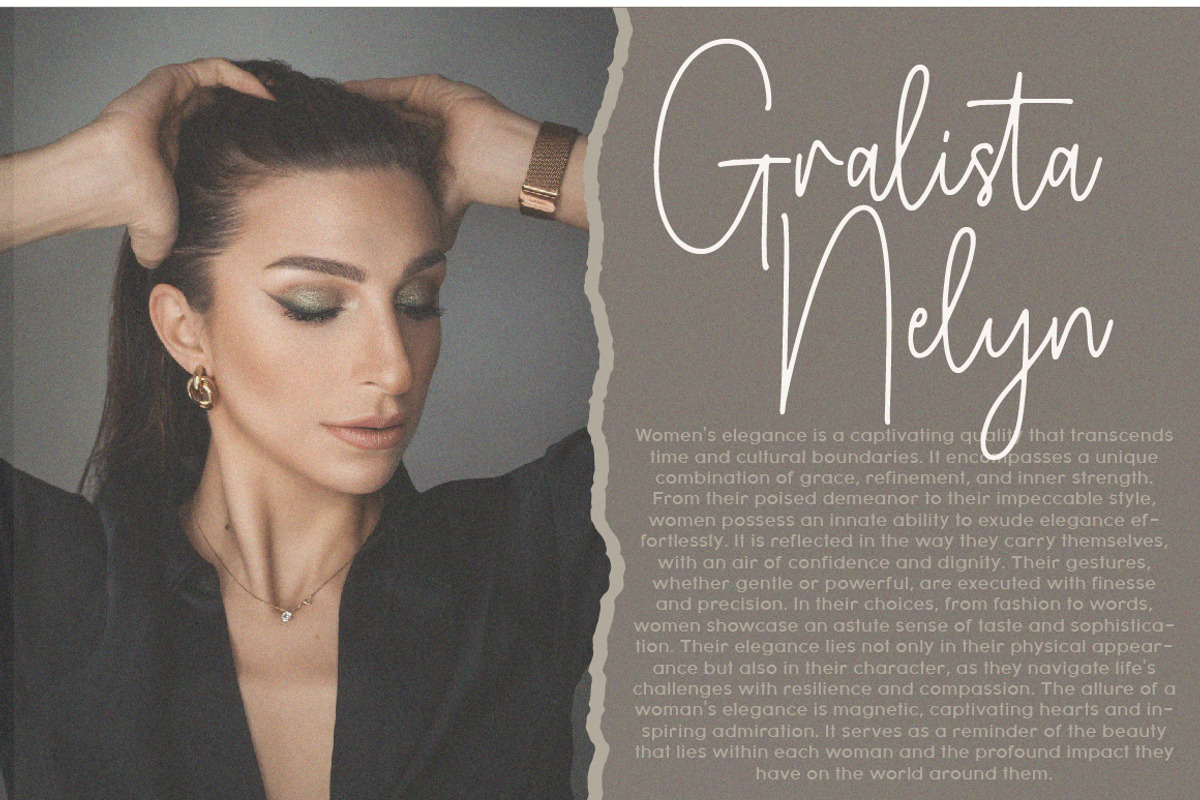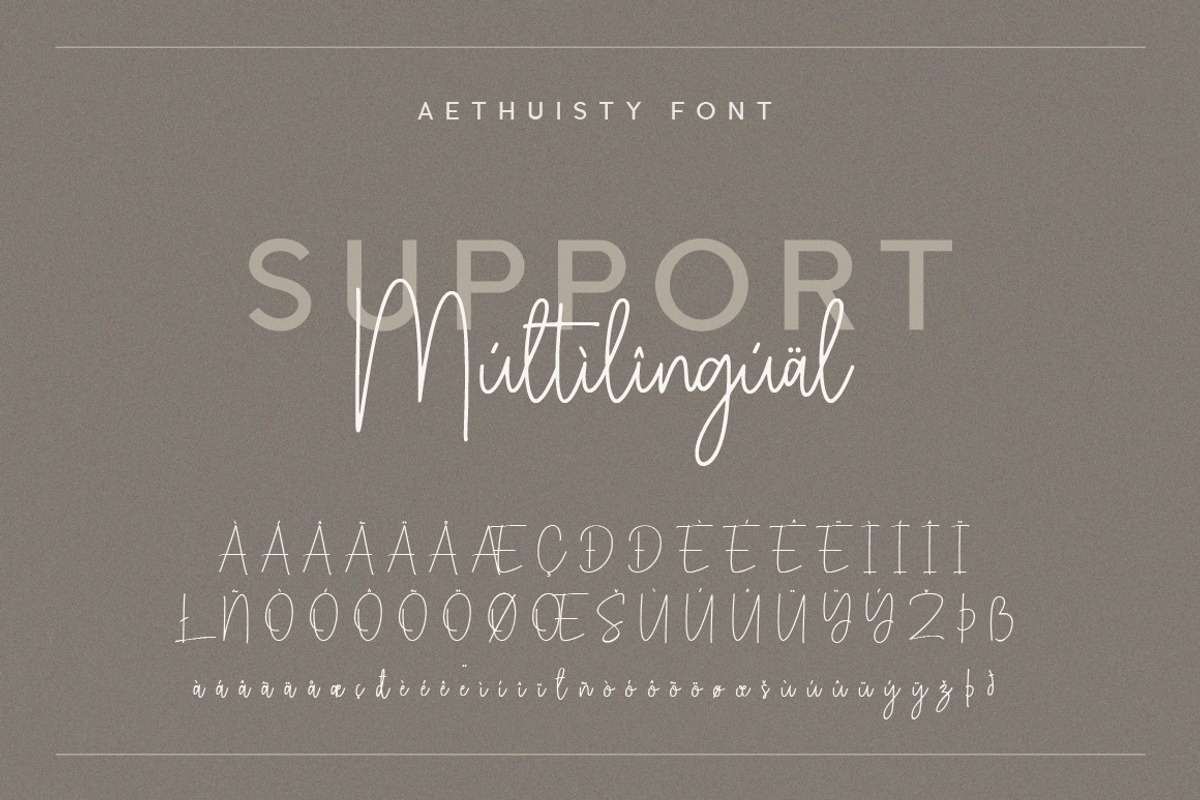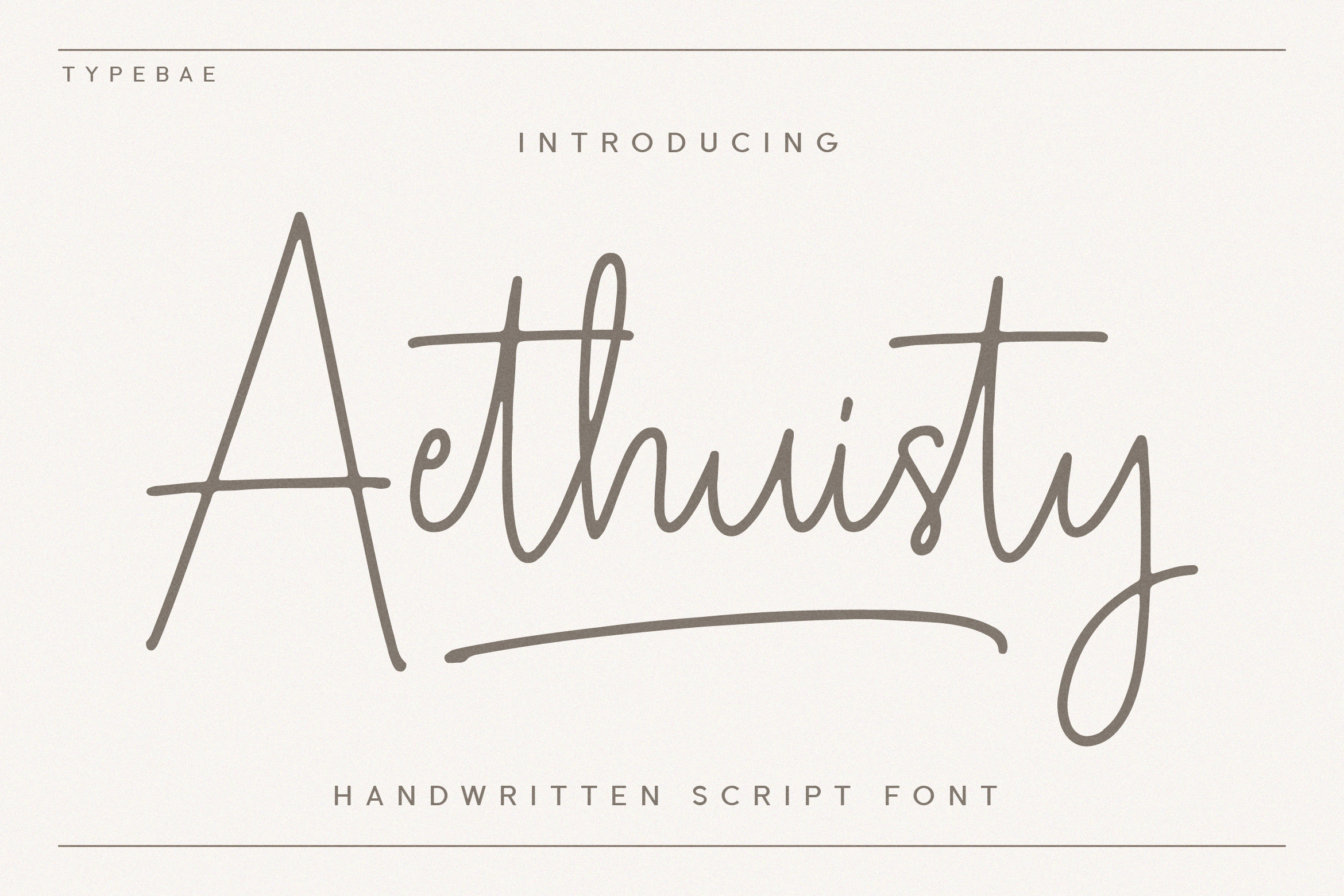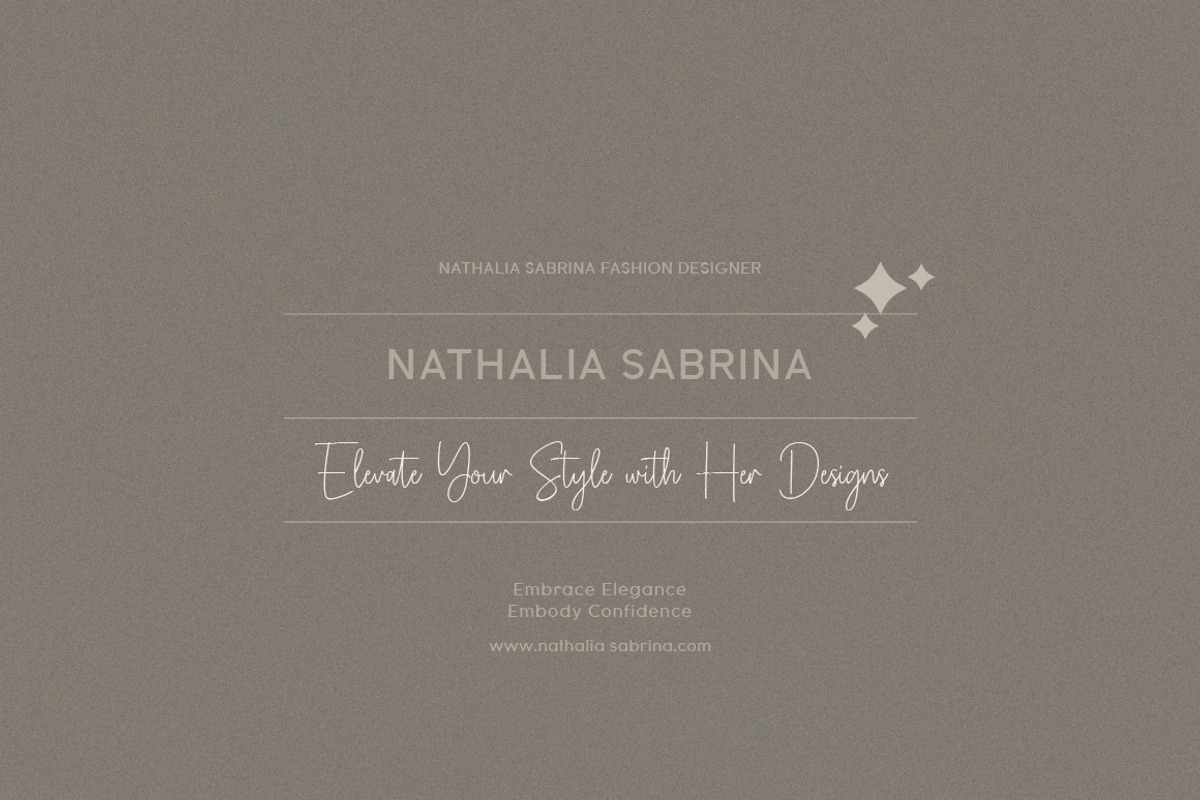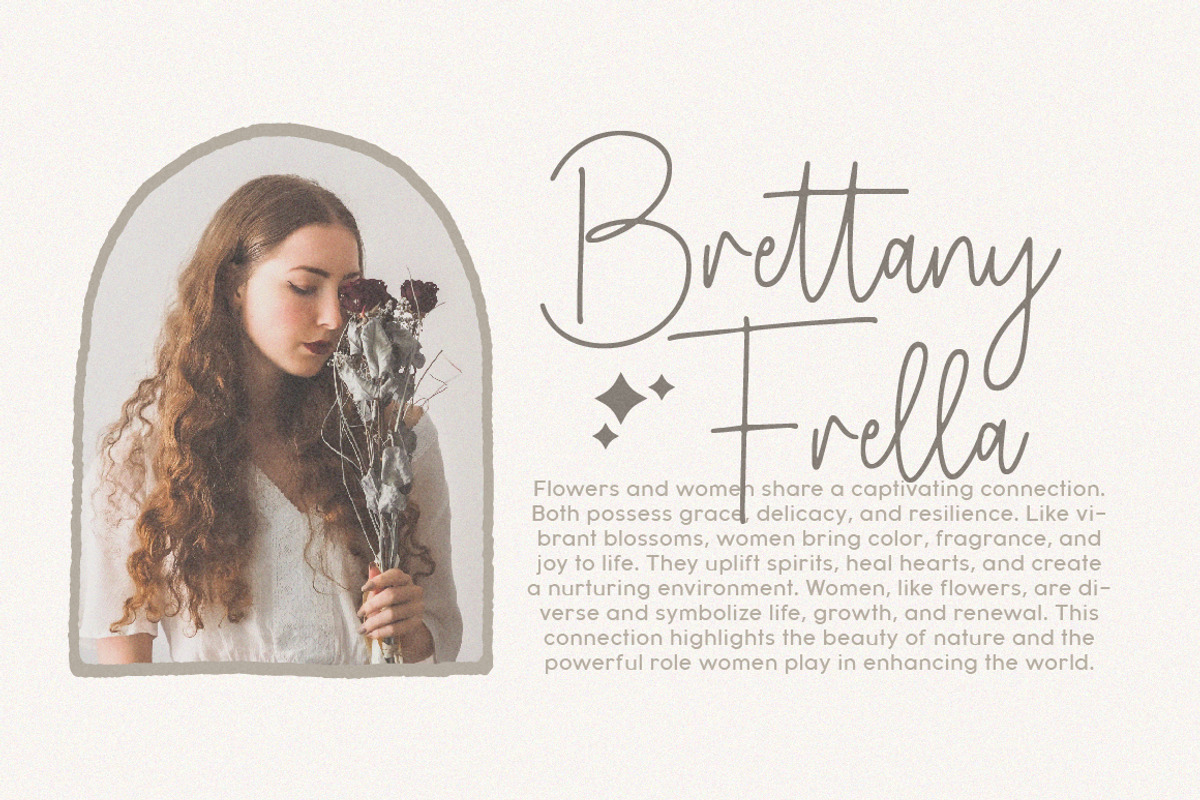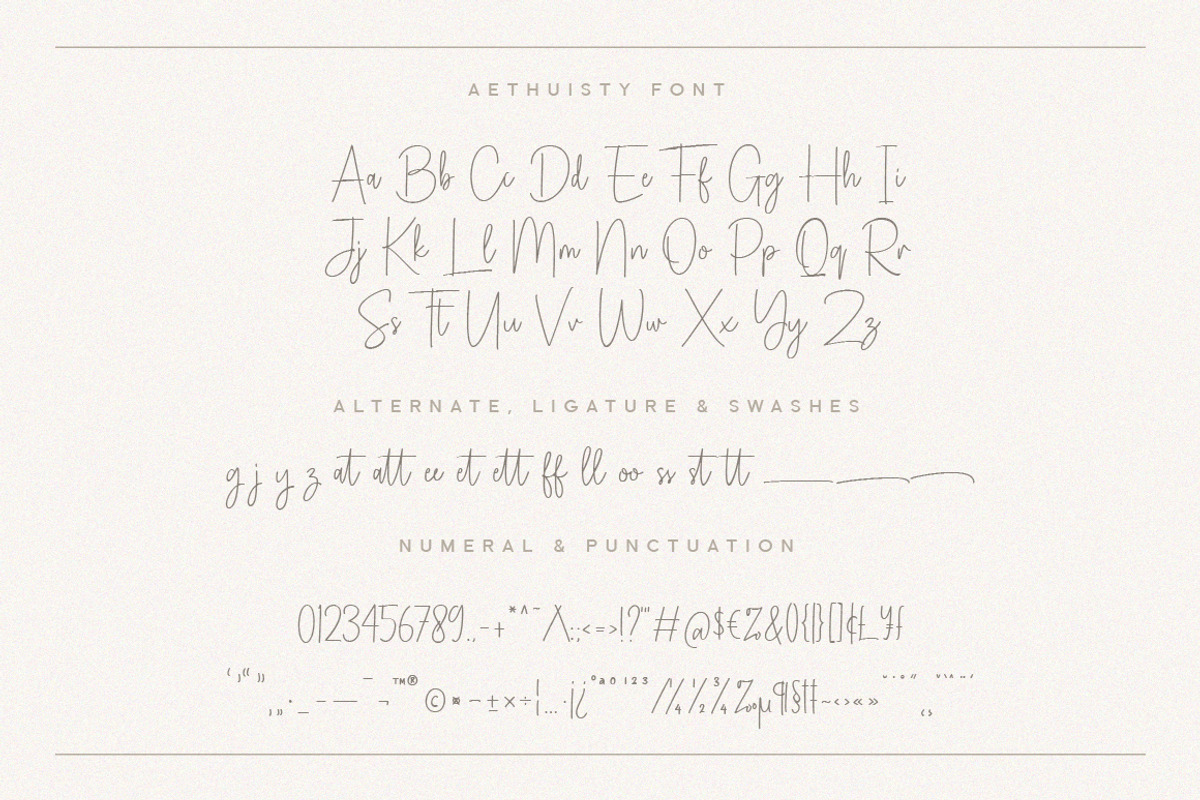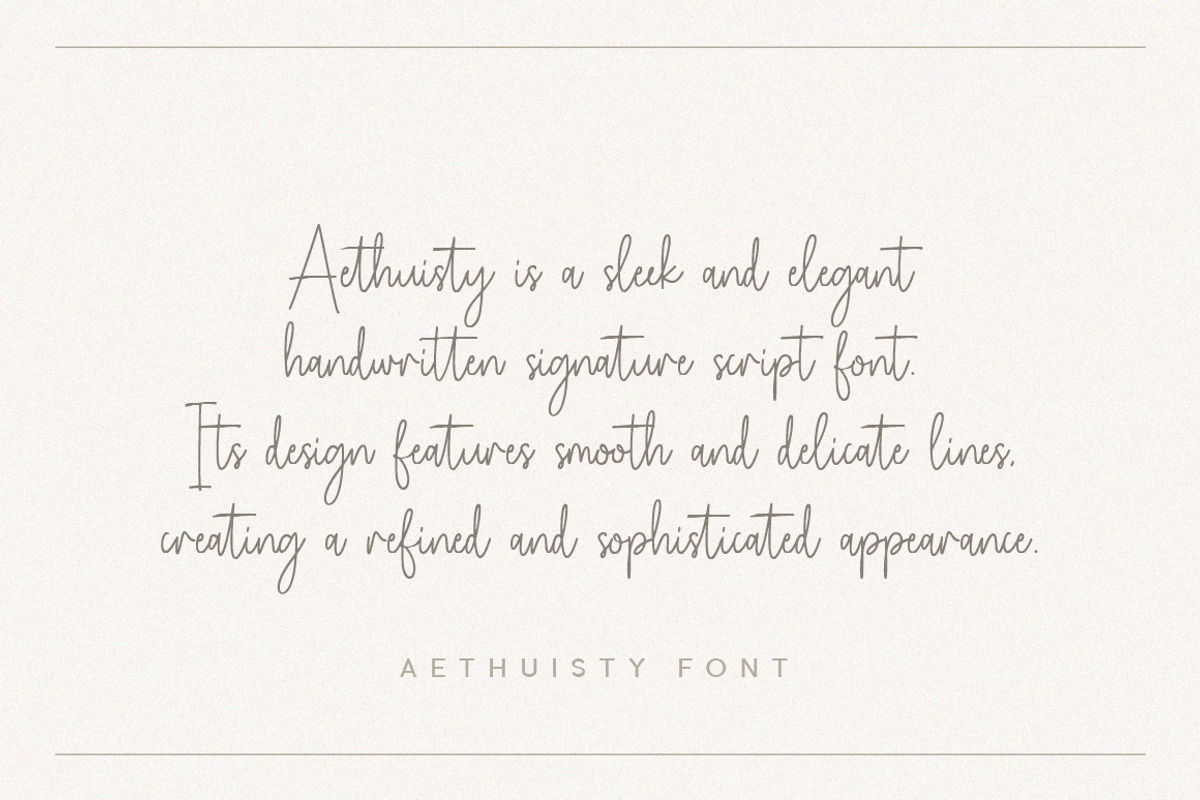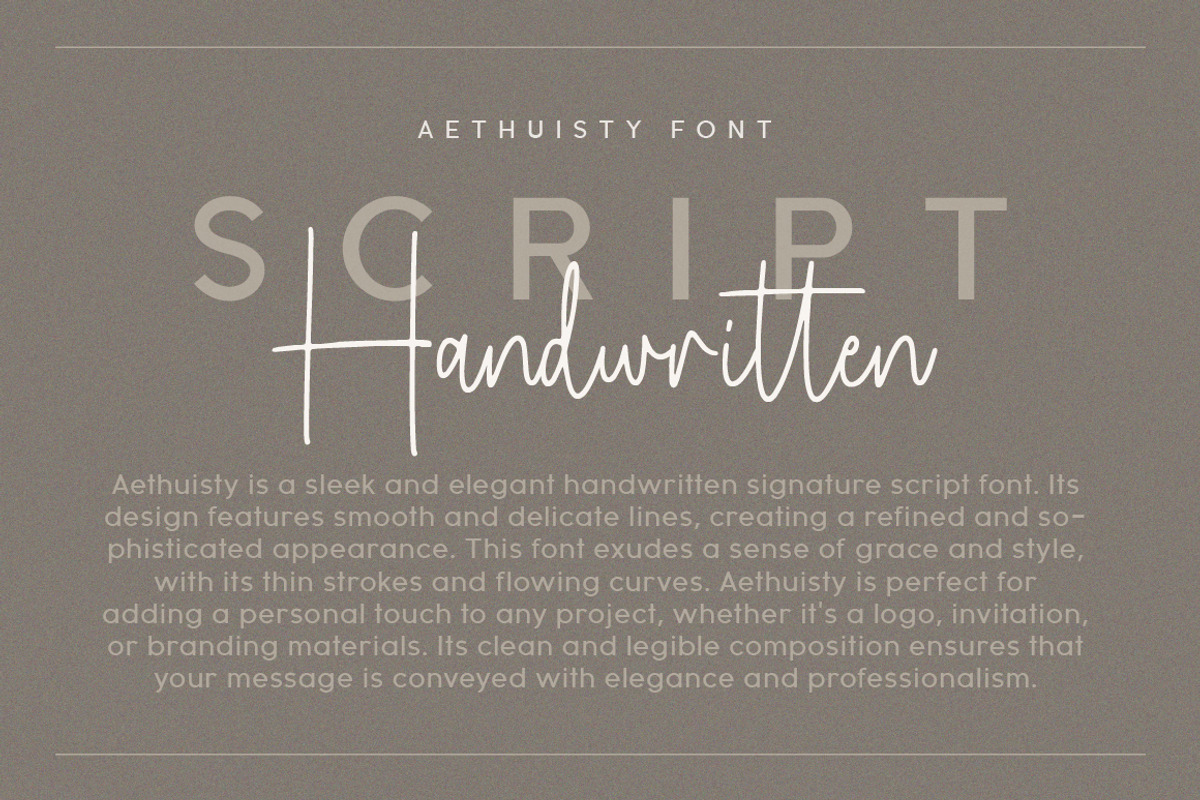
Aethuisty Handwritten Script Font
Aethuisty is a sleek and elegant handwritten signature script font. Its design features smooth and delicate lines, creating a refined and sophisticated appearance. This font exudes a sense of grace and style, with its thin strokes and flowing curves. Aethuisty is perfect for adding a personal touch to any project, whether it's a logo, invitation, or branding materials.
- Full alphabet and punctuation
- Alternate, Ligature & Swashes
- Multilingual Support: Afrikaans, Basque, Breton, Catalan, Danish, Dutch, English, Finnish, French, Gaelic (Irish, Scots), German, Icelandic, Indonesian, Irish, Italian, Norwegian, Portuguese, Saami (Southern), Spanish, Swahili, Swedish.